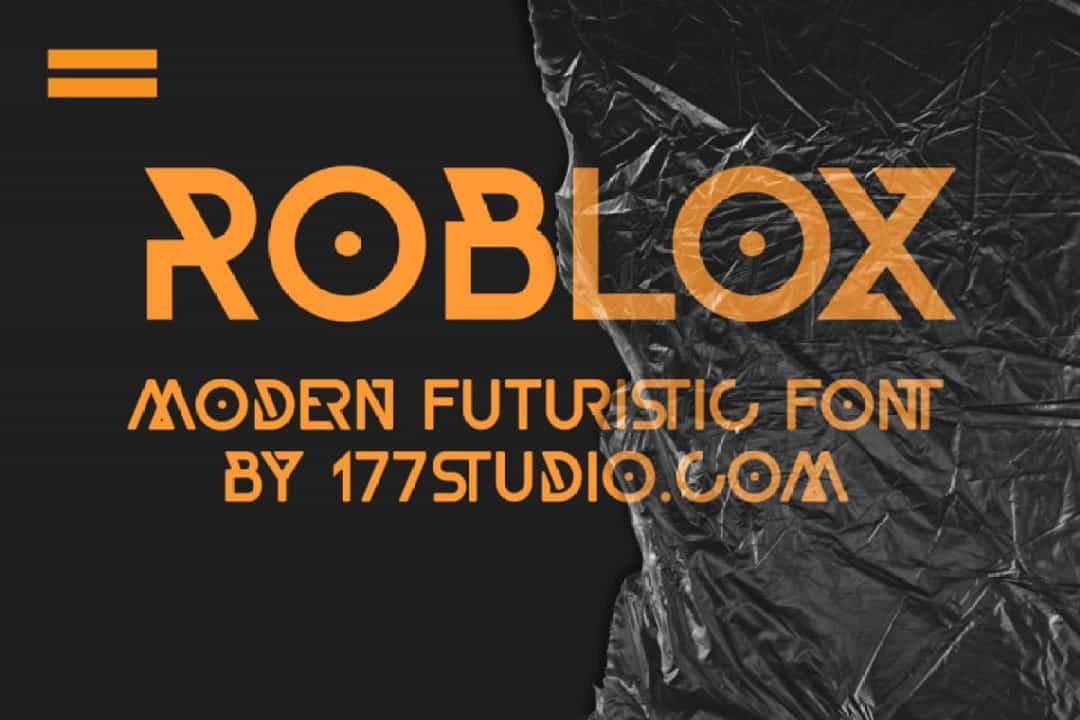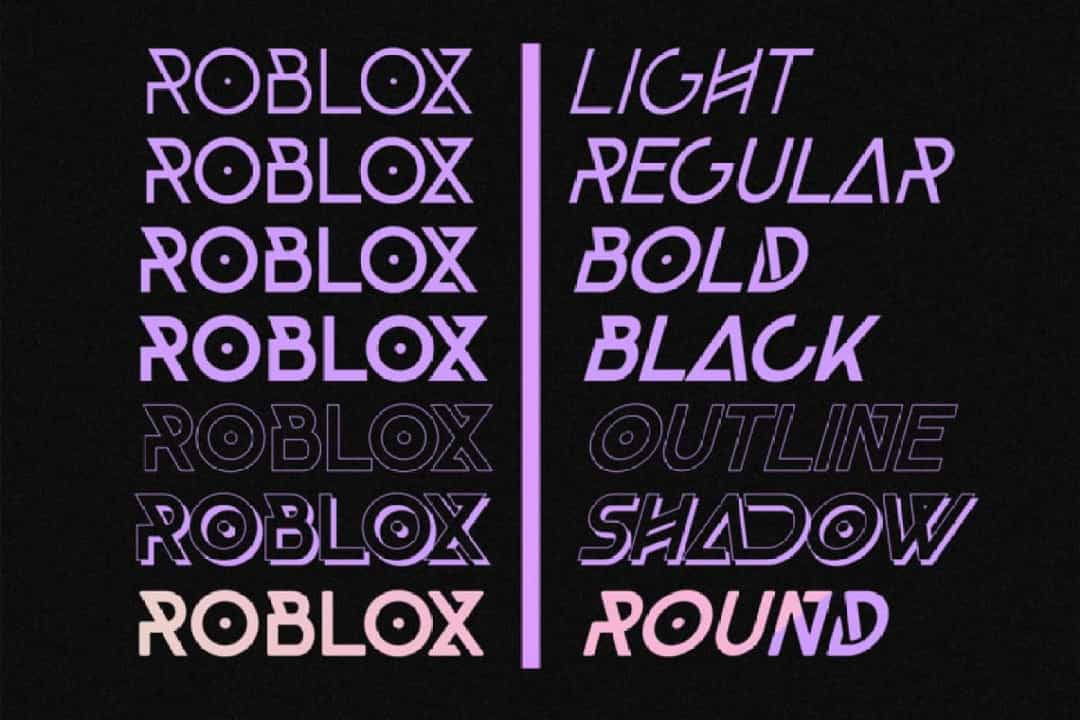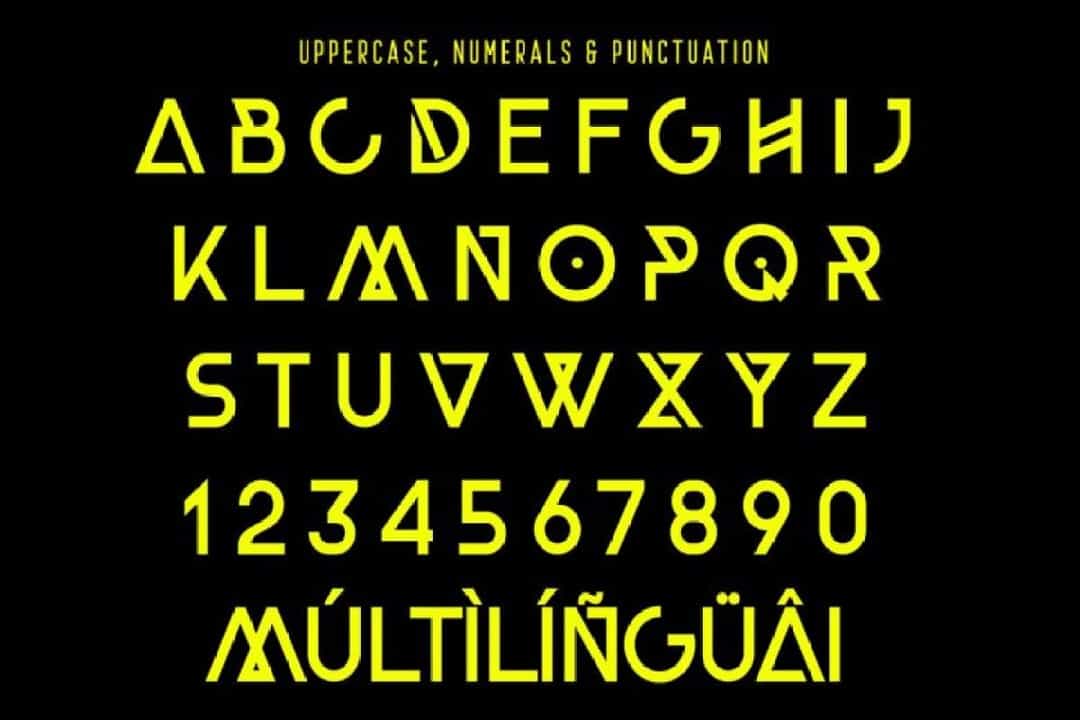
Roblox is a geometric sans typeface that reflects the Character that is Powerful and Robust. It has straight edged look and very neat in texture; It is unique in its own way because of its squared shapes and smooth surface; The font is quite simple yet significant, the Letterform has straight edges and modernistic look, clean and unadorned face, Making it a perfect font for Modern Business and Modern Company – being a Capitalized Sans-Stems font, Roblox is a font for all purposes and all ages.